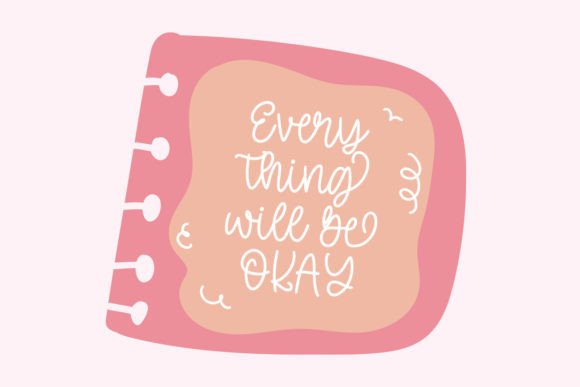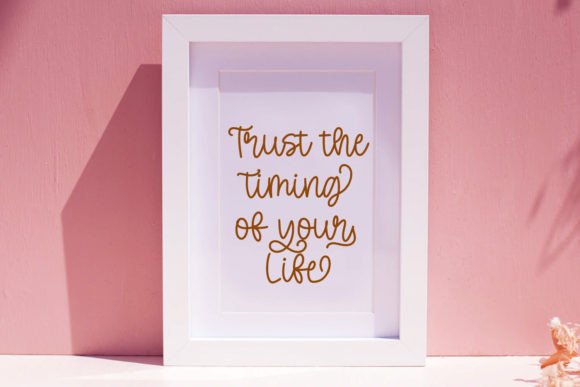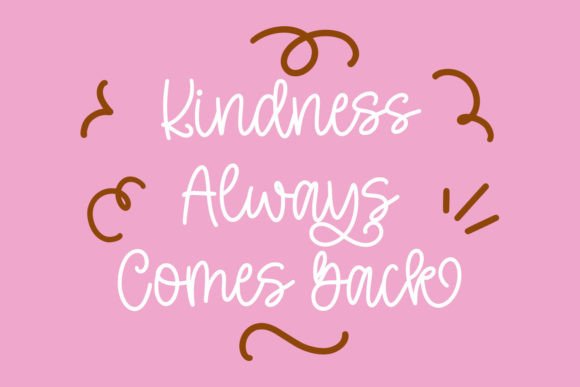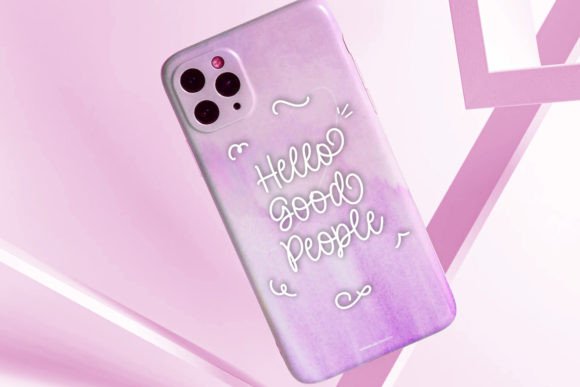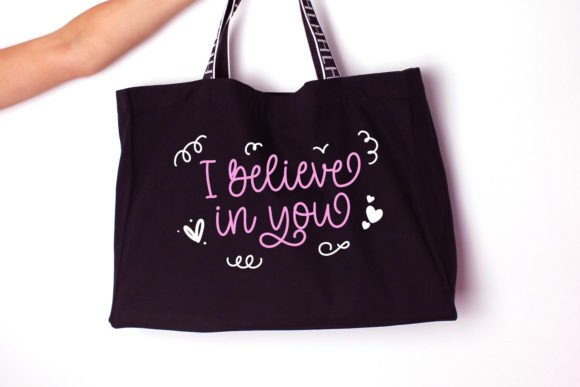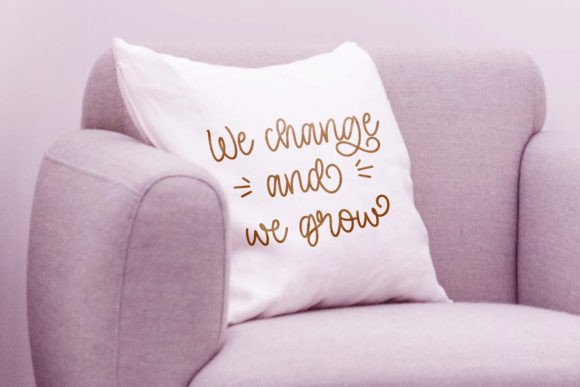
Cisder Honey Font: A Delightful Script Font for Your Creative Projects
Cisder Honey is a charming script font that has captured the hearts of designers and crafters alike. With its playful style and light weight, this font exudes sweetness and charm, making it perfect for a variety of creative projects. In this article, we’ll dive into the world of Cisder Honey and explore its features, benefits, and uses.
The Beauty of Cisder Honey
Cisder Honey is a delightful script font that captures the fluidity and elegance of cursive handwriting. Each letter flows seamlessly into the next, creating a sense of rhythm and movement that is both captivating and inviting. The font’s playful style and light weight make it perfect for adding a touch of whimsy and charm to any design.
Features of Cisder Honey
- Playful Style: Cisder Honey has a playful style that is perfect for designs that require a touch of whimsy and charm.
- Light Weight: The font’s light weight makes it easy to read and perfect for designs that require a clean and elegant look.
- Fluidity and Elegance: Cisder Honey captures the fluidity and elegance of cursive handwriting, making it perfect for designs that require a personal touch.
- Seamless Letter Flow: Each letter flows seamlessly into the next, creating a sense of rhythm and movement that is both captivating and inviting.
Benefits of Using Cisder Honey
Cisder Honey offers a range of benefits for designers and crafters, including:
- Unique and Creative Designs: Cisder Honey’s playful style and light weight make it perfect for creating unique and creative designs that stand out from the crowd.
- Elegant and Sophisticated Look: The font’s fluidity and elegance make it perfect for designs that require a sophisticated and elegant look.
- Easy to Read: Cisder Honey’s light weight and clear lettering make it easy to read, even at small sizes.
- Versatile: The font is versatile and can be used for a range of creative projects, from branding and packaging to wedding invitations and crafts.
Uses of Cisder Honey
Cisder Honey is a versatile font that can be used for a range of creative projects, including:
- Branding and Packaging: Cisder Honey’s playful style and elegant look make it perfect for branding and packaging designs.
- Wedding Invitations: The font’s whimsical and romantic feel make it perfect for wedding invitations and other wedding-related designs.
- Crafts: Cisder Honey is perfect for crafters who want to add a personal touch to their projects, from scrapbooking to card making.
- Digital Designs: The font can be used for digital designs, such as social media graphics, blog posts, and website headers.
Tips for Using Cisder Honey
Here are some tips for using Cisder Honey in your designs:
- Pair with Other Fonts: Cisder Honey pairs well with other fonts, such as sans-serif fonts, to create a unique and creative look.
- Use for Headings and Titles: The font’s playful style and elegant look make it perfect for headings and titles.
- Experiment with Colors: Cisder Honey looks great in a range of colors, from bright and bold to soft and pastel.
- Use for Personal Projects: The font is perfect for personal projects, such as creating custom wedding invitations or crafting handmade cards.
Cisder Honey is a delightful script font that exudes sweetness and charm. With its playful style and light weight, this font is perfect for designers and crafters who want to add a touch of whimsy and elegance to their designs. Whether you’re creating branding and packaging designs, wedding invitations, or crafts, Cisder Honey is a versatile font that is sure to impress.